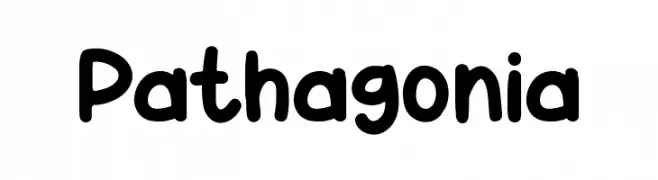
A playful, whimsical handwritten font with fluid, irregular strokes.
A dynamic, brush-style font with expressive, fluid strokes.
A bold, rounded font with a playful and friendly appearance.
A bold, playful font with rounded, bubbly characters.
A playful and whimsical font with dynamic, irregular letterforms.
A pixelated, retro-style font with a bold, blocky design.
A bold, pixelated font with a retro, arcade-style design.
A bold, decorative font with a unique outline effect and intricate details.
A bold, decorative font with a unique outline style, ideal for vintage-themed projects.
A bold, decorative outline font with a vintage flair.
A bold, dramatic font with thick strokes and sharp serifs, ideal for impactful designs.
A bold, vintage-style font with handcrafted, irregular edges.
A thin, artistic font with elongated strokes and sharp serifs, offering a whimsical and gothic feel.
A bold, patchwork display font with diverse patterns for creative projects.
A playful, bold handwritten font with smooth, rounded edges and a lively appearance.
A playful, stitched-style font with a crafty, homemade feel.
Bold, brush-style handwritten script with connected, flowing strokes.
A bold, geometric font with a patchwork design and high contrast.
A bold, patchwork-style font with dynamic, irregular shapes.
A bold, rugged font with a patchwork, handcrafted appearance.
A playful, hand-stitched font with a patchwork quilt appearance.
A playful, handcrafted font with bold, rounded characters and a stitched appearance.
A playful, patchwork-style font with intricate patterns and bold outlines.
A playful, bold font with a patchwork, robotic style featuring circular cutouts.
An elegant and sophisticated script font with flowing, cursive letterforms.
A classic serif font with elegant curves and refined details.
A casual, handwritten font with a playful and informal style.
A modern, geometric sans-serif font with uniform strokes and balanced spacing.
A bold 3D font with intricate geometric patterns and a modern, edgy style.